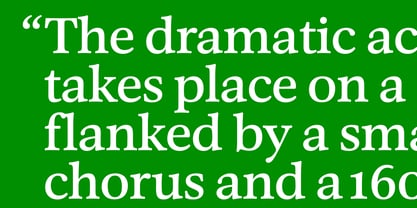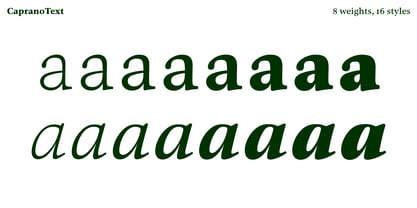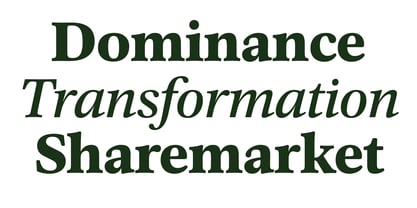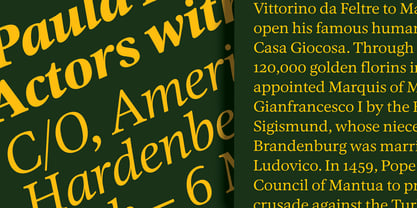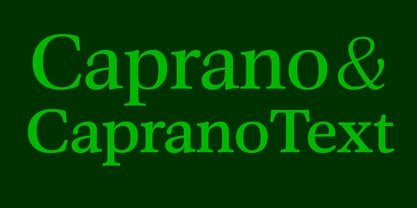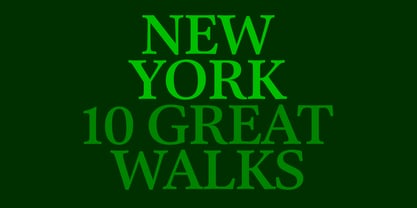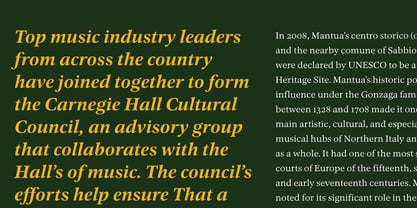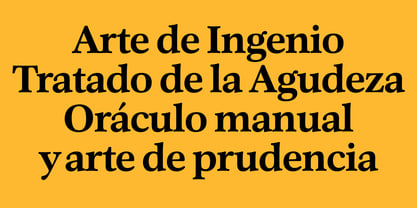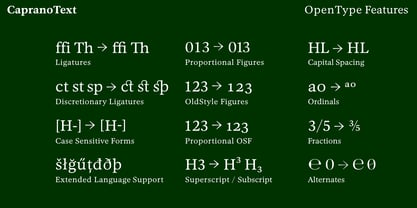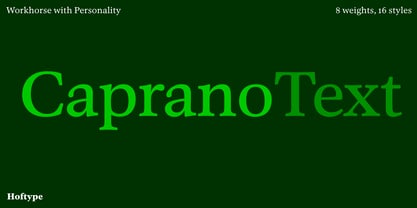
Caprano Text
by Hoftype
CapranoText is the more “down-to-earth” version of Caprano. It features stronger hairlines, stronger serifs, and slightly wider proportions. Its greater x-height ensures an open text image that is easy to read, even in very small text applications. The robust stroke weights enable expressive headlines and also makes it a strong workhorse. CapranoText is recommended as a contemporary alternative to established fonts such as Plantin, Times New Roman, and Garamond.
German designer Dieter Hofrichter started his foundry in 2010. Since then, he has remained focused on developing text fonts that integrate the rich history and tradition of typography with contemporary styles. Based in Munich, his first typeface on MyFonts was Impara, a sans serif with lively stroke ductus and distinct humanistic characteristics that is a representation of linear coolness and classic elegance. Since his debut, he has continued to produce beautiful, high quality serif faces. Capita, one of the foundry’s best sellers, is a self-dominated face with a fresh style that avoids the harshness of many slab serifs. Dieter has also seen success with one of his most recent designs, Mangan, a text face that combines classical rationality with contemporary design. “One of our intentions is to utilize the knowledge of the history of type to create contemporary types,” Dieter says. “Style consciousness and many years of experience in type design are our qualifications for producing functional and usable types of high quality.”